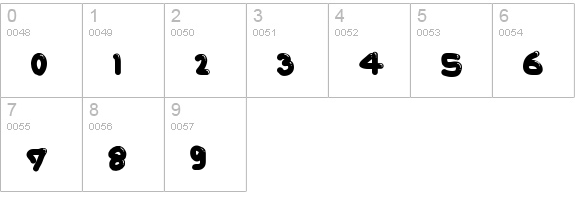
Introducing TX Jello, a whimsical and playful font that is sure to add a delightful touch to your designs! With its unique and bouncy letterforms, this font is perfect for projects that require a fun and lighthearted feel. TX Jello is not only aesthetically pleasing, but it also offers the added benefit of being free! Yes, you heard it right. This incredible font is freely available to download at FontsMarket.com, making it accessible to everyone, regardless of their budget. Whether you're working on a children's book, a party invitation, a logo, or any other creative project, TX Jello will bring a touch of joy and excitement. The rounded edges and friendly shapes of the letters create a sense of warmth and approachability, making it a versatile font that can be used in a variety of contexts. The bold and vibrant personality of TX Jello is bound to capture attention and leave a lasting impression. Its cheerful and energetic vibe is perfect for capturing the imagination of both young and old audiences alike. So why wait? Dive into the world of TX Jello and let your creativity soar. Download this remarkable font for free at FontsMarket.com and start adding a delightful twist to your designs today.